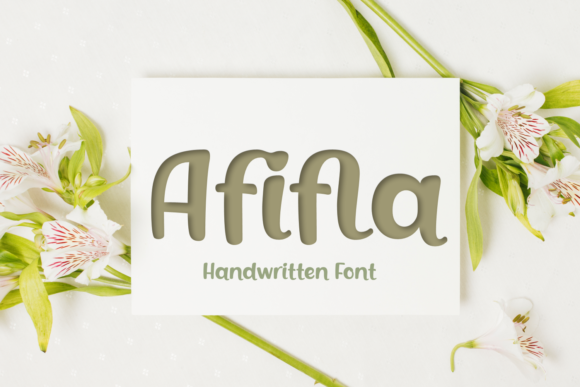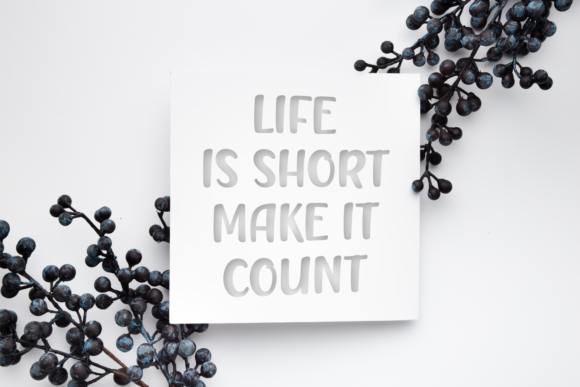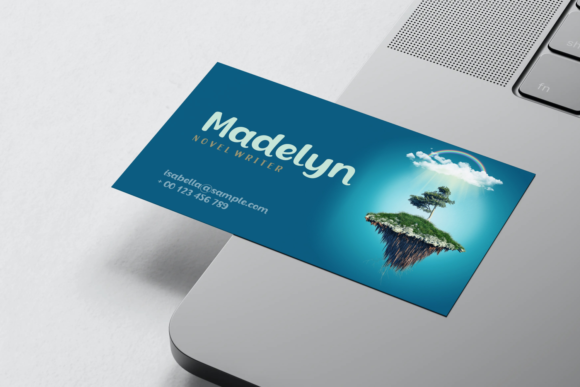
Afifla Font
About Afifla Font
Absolutely! Afifla is a font that encapsulates the essence of creativity and friendliness. With its cute and casual handwritten style, Afifla brings a touch of warmth and approachability to your design projects, making them stand out in a truly delightful way.
Imagine scrolling through your Instagram feed and stumbling upon a post adorned with Afifla. The charming curves and effortless strokes of this font immediately catch your eye, drawing you into the content with its friendly and inviting vibe. It’s not just a font choice; it’s a visual experience that captures attention and engages your audience.
For DIY enthusiasts and creators, Afifla is like having your own personal calligraphy expert. Whether you’re working on invitations, crafting personalized gifts, or adding a unique touch to your social media graphics, Afifla transforms your creative ideas into genuine works of art. Its handwritten charm adds an authentic and human touch to your projects, making them feel special and one-of-a-kind.
The versatility of Afifla is truly remarkable. It effortlessly adapts to a variety of contexts, seamlessly transitioning from digital designs to physical prints. Whether you’re designing digital content for your online presence or working on tangible projects like greeting cards and posters, Afifla remains consistent in its friendly and endearing style.
Businesses seeking to create a personal connection with their audience can also benefit from Afifla. Imagine using it in your brand’s social media posts, email newsletters, or promotional materials. This font adds a level of relatability that resonates with customers and followers, making your brand feel more approachable and relatable.
Special occasions and events become even more memorable with Afifla. Picture wedding invitations, baby announcements, and party decorations adorned with its playful yet elegant letters. Afifla has the power to set the tone for joyous celebrations and create lasting impressions.
In a world where digital communication dominates, Afifla reminds us of the beauty and authenticity of handwritten elements. It’s a font that transforms ordinary text into something that evokes emotions and tells a story. So, whether you’re a content creator, a designer, or a business owner, let Afifla be the tool that brings your creative ideas to life as true pieces of art, filled with warmth and friendliness.